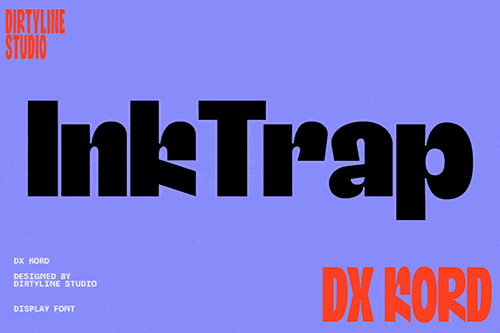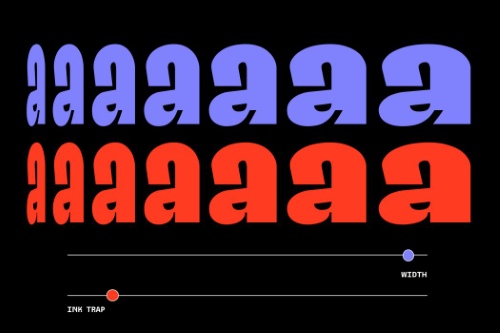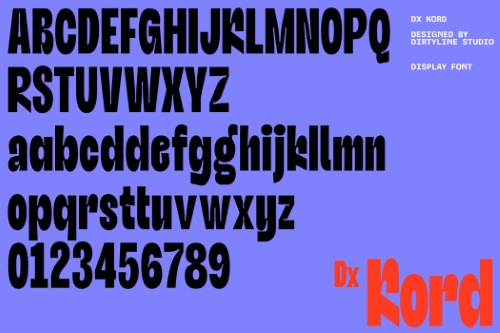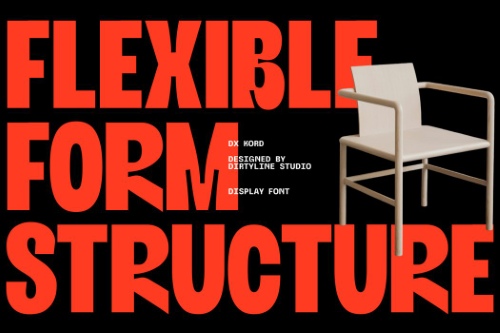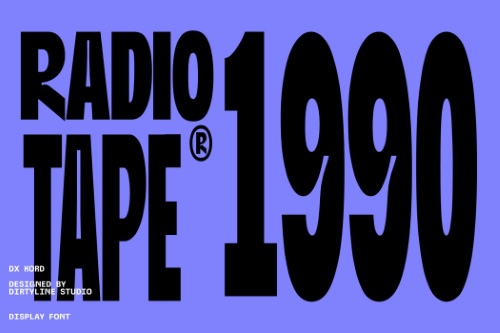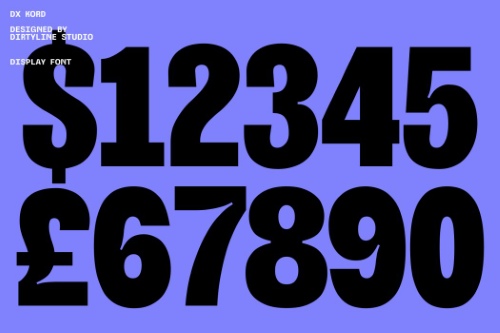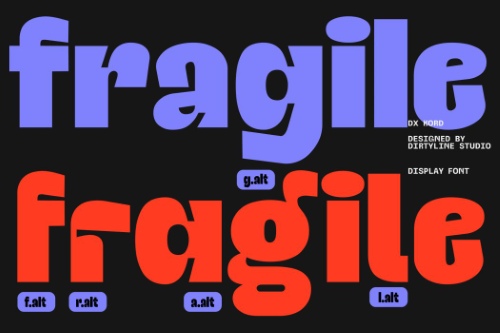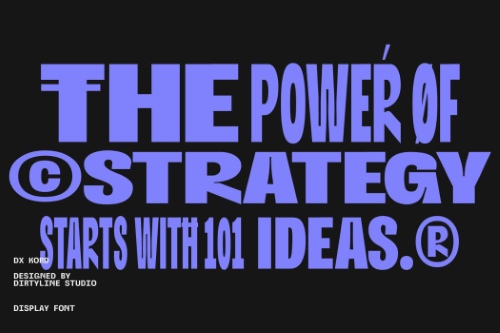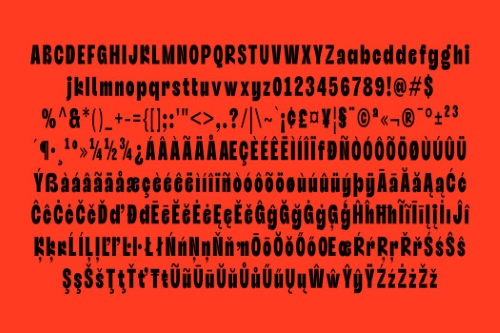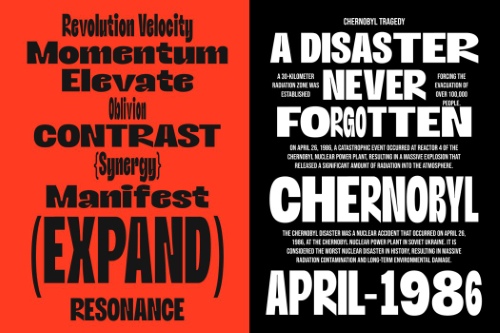
Dx Kord - 18 Styles + Variable Font Family
- DX Kord is a groundbreaking, modern sans-serif font that combines power, precision, and flexibility. Designed for those who demand versatility, DX Kord is a display font with the power to adapt to any creative vision. Whether you’re crafting eye-catching advertisements, logos, packaging, or digital assets, this font will elevate your design to the next level.
Width Axis – From sleek Compressed to wide Extended, control the letter spacing to make your design feel compact or expansive—ideal for headlines, logos, and impactful branding. Inktrap Axis – Choose between Regular and Inktrap styles for a sharp, modern aesthetic that adds character and precision to every curve and corner, making it stand out in print and digital applications alike.